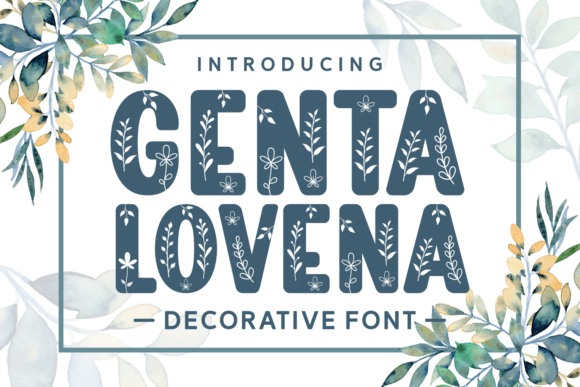
Genta Lovena Font: A Charming Botanical-Themed Decorative Font
Are you a designer or crafter looking for a unique and charming font to elevate your projects? Look no further than Genta Lovena Font, a beautiful botanical-themed decorative font that’s perfect for creating stunning designs. With its lovely floral characters and PUA encoding, this font is ideal for a wide range of applications, from branding and fabric prints to digital typography and crafts.
What is Genta Lovena Font?
Genta Lovena Font is a decorative font that features charming botanical-themed characters, including flowers, leaves, and other natural elements. The font is designed to add a touch of elegance and whimsy to any project, making it perfect for designers and crafters who want to create unique and eye-catching designs.
Key Features of Genta Lovena Font
- Botanical-themed characters: The font features a range of beautiful botanical-themed characters, including flowers, leaves, and other natural elements.
- PUA encoded: The font is PUA (Private Use Area) encoded, which means that you can easily access all the glyphs and characters using a keyboard or design software.
- Decorative and elegant: The font has a decorative and elegant feel, making it perfect for projects that require a touch of sophistication and whimsy.
- Versatile: The font is versatile and can be used for a wide range of applications, including branding, fabric prints, crafts, digital typography, and more.
Uses for Genta Lovena Font
Genta Lovena Font is a versatile font that can be used for a wide range of applications, including:
- Branding projects: Use the font to create unique and eye-catching logos, business cards, and other branding materials.
- Fabrics and textiles: The font is perfect for creating beautiful fabric prints, scarves, and other textile products.
- Crafts: Use the font to create unique and personalized crafts, such as cards, invitations, and gift tags.
- Digital typography: The font can be used for digital typography projects, such as social media graphics, blog posts, and website headers.
Benefits of Using Genta Lovena Font
There are many benefits to using Genta Lovena Font, including:
- Unique and eye-catching designs: The font allows you to create unique and eye-catching designs that will stand out from the crowd.
- Easily accessible glyphs: The PUA encoding makes it easy to access all the glyphs and characters, saving you time and effort.
- Versatility: The font can be used for a wide range of applications, making it a great addition to your font library.
- Elegant and sophisticated: The font has an elegant and sophisticated feel, making it perfect for projects that require a touch of luxury and whimsy.
Tips for Using Genta Lovena Font
Here are some tips for using Genta Lovena Font:
- Experiment with different sizes and colors: The font looks great in a range of sizes and colors, so don’t be afraid to experiment and find the perfect combination for your project.
- Use it with other fonts: Genta Lovena Font pairs well with other fonts, so try using it with a sans-serif font for a modern look or a script font for a more elegant feel.
- Pay attention to spacing and kerning: As with any font, pay attention to spacing and kerning to ensure that your text looks professional and polished.
Genta Lovena Font is a charming botanical-themed decorative font that’s perfect for designers and crafters who want to create unique and eye-catching designs. With its lovely floral characters, PUA encoding, and versatility, this font is ideal for a wide range of applications. Whether you’re working on a branding project, fabric print, craft, or digital typography project, Genta Lovena Font is a great choice. So why not give it a try and see what beautiful designs you can create?